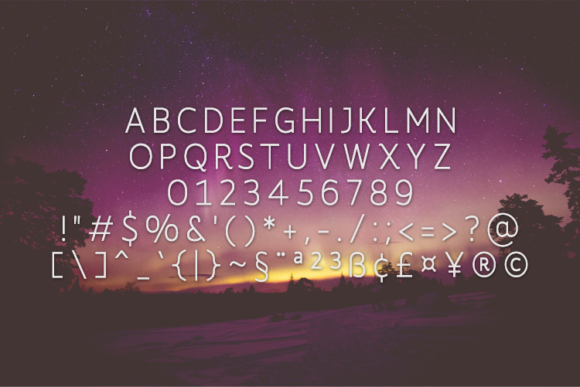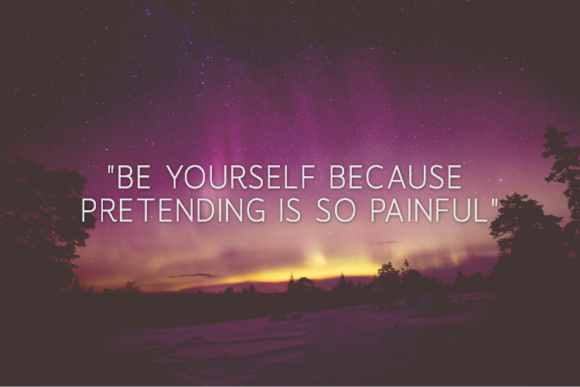
Unlocking the Power of Plineparket Font
As a designer, you’ve probably experienced that moment of frustration when you can’t find the perfect font to bring your creative vision to life. You’ve scrolled through countless options, but nothing seems to capture the essence of your project. That’s where the Plineparket Font comes in – a modern and clean sans serif font that’s about to revolutionize the way you approach your next design project.
With its smooth and clean lines, and just a touch of contrast, Plineparket Font is the perfect design resource for any creative project. Whether you’re working on a logo, branding, or web heading, this high-quality font is sure to impress. And the best part? It’s available for free download, making it a valuable addition to any designer’s toolkit.
Key Features of Plineparket Font
- High-quality design resource suitable for various creative projects, including graphic design, digital art, and typography.
- Features a transparent background, allowing for seamless integration with different design elements and backgrounds.
- Designed with precision and attention to detail, resulting in a high-resolution font that is perfect for large-scale designs and printing.
- Perfect for designers who require a unique and creative font to add a touch of elegance and sophistication to their projects.
Honest Review: Plineparket Font
As a designer, I’m always on the lookout for high-quality fonts to enhance my creative projects. Recently, I had the chance to work with the Plineparket Font, and I must say, it’s been a great addition to my design resource library.
- ✨ The font’s design is modern and sleek, making it perfect for contemporary design projects.
- ✨ The transparent background option is a nice touch, allowing for seamless integration with other design elements.
However, I did encounter some limitations with the font.
- ⚠️ The font’s weight range is limited, which may not be ideal for projects requiring a wide range of font weights.
- ⚠️ The font’s legibility can be affected by certain font sizes, so designers need to be mindful of this when using the font.
Overall, I’m impressed with the Plineparket Font’s potential, but I think it could benefit from a few more weight options and improved legibility at certain font sizes. Despite these limitations, I still consider it a valuable design resource, especially for designers working on free projects or those with limited budgets.
Tips for Getting the Most Out of Plineparket Font
Experiment with different font sizes and styles to create visually appealing designs. Use the font in combination with other design elements, such as images and graphics, to create a cohesive and engaging visual identity.
Common Use Cases for Plineparket Font
The Plineparket Font is ideal for use in creative projects, such as graphic design, web design, and print materials. Its high-quality design and transparent background capabilities make it a great choice for designs that require a clean and modern look.